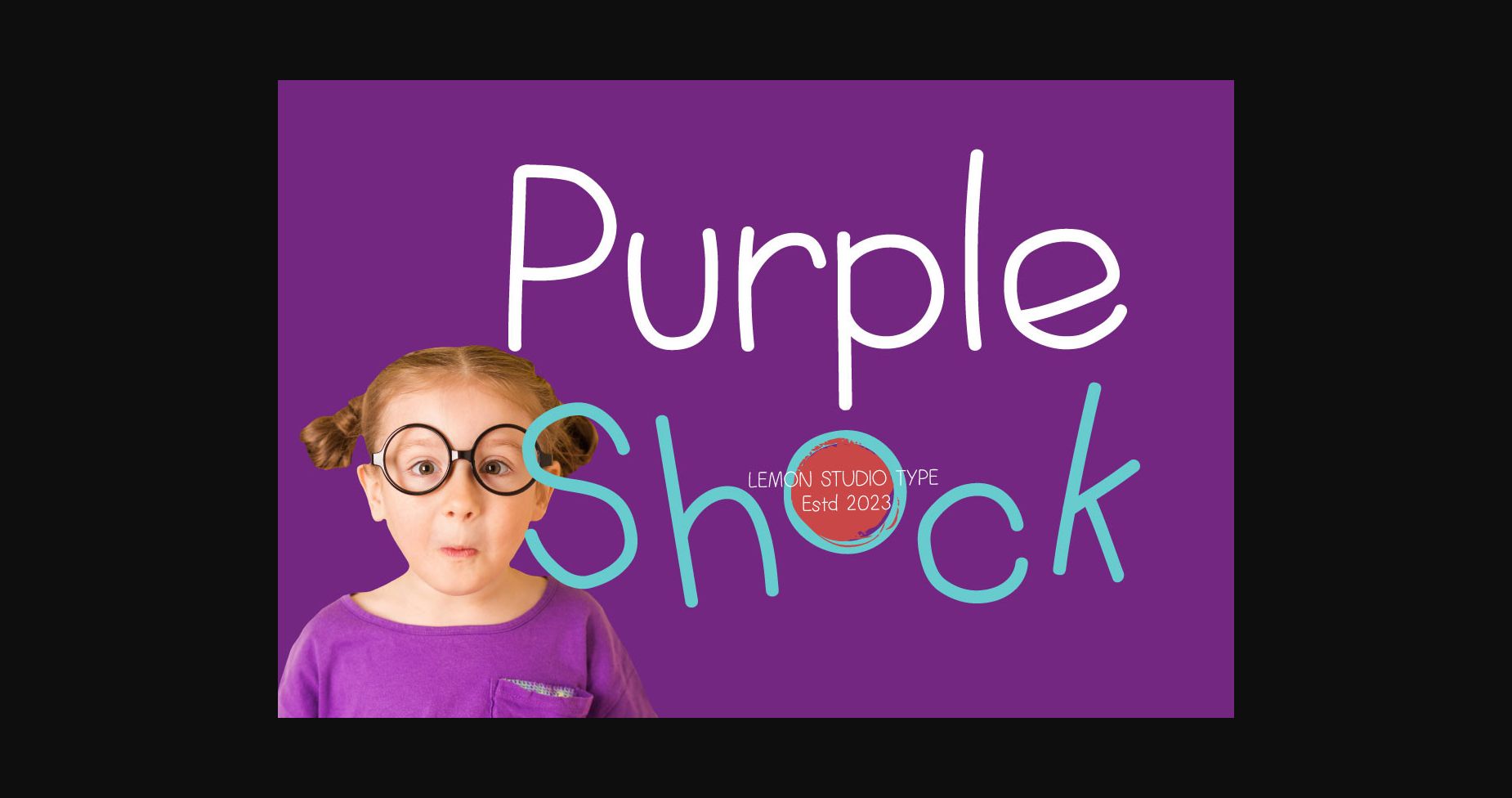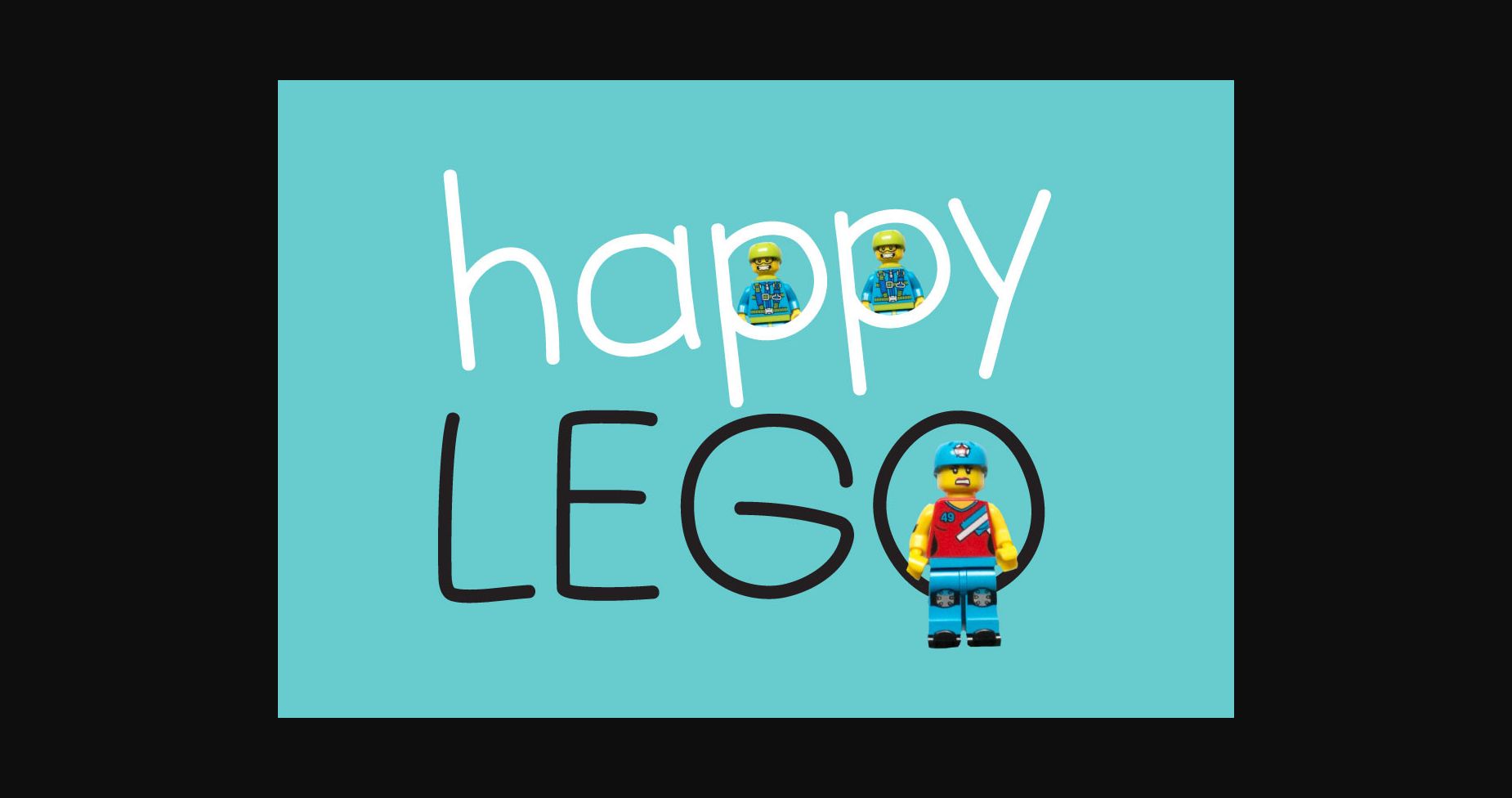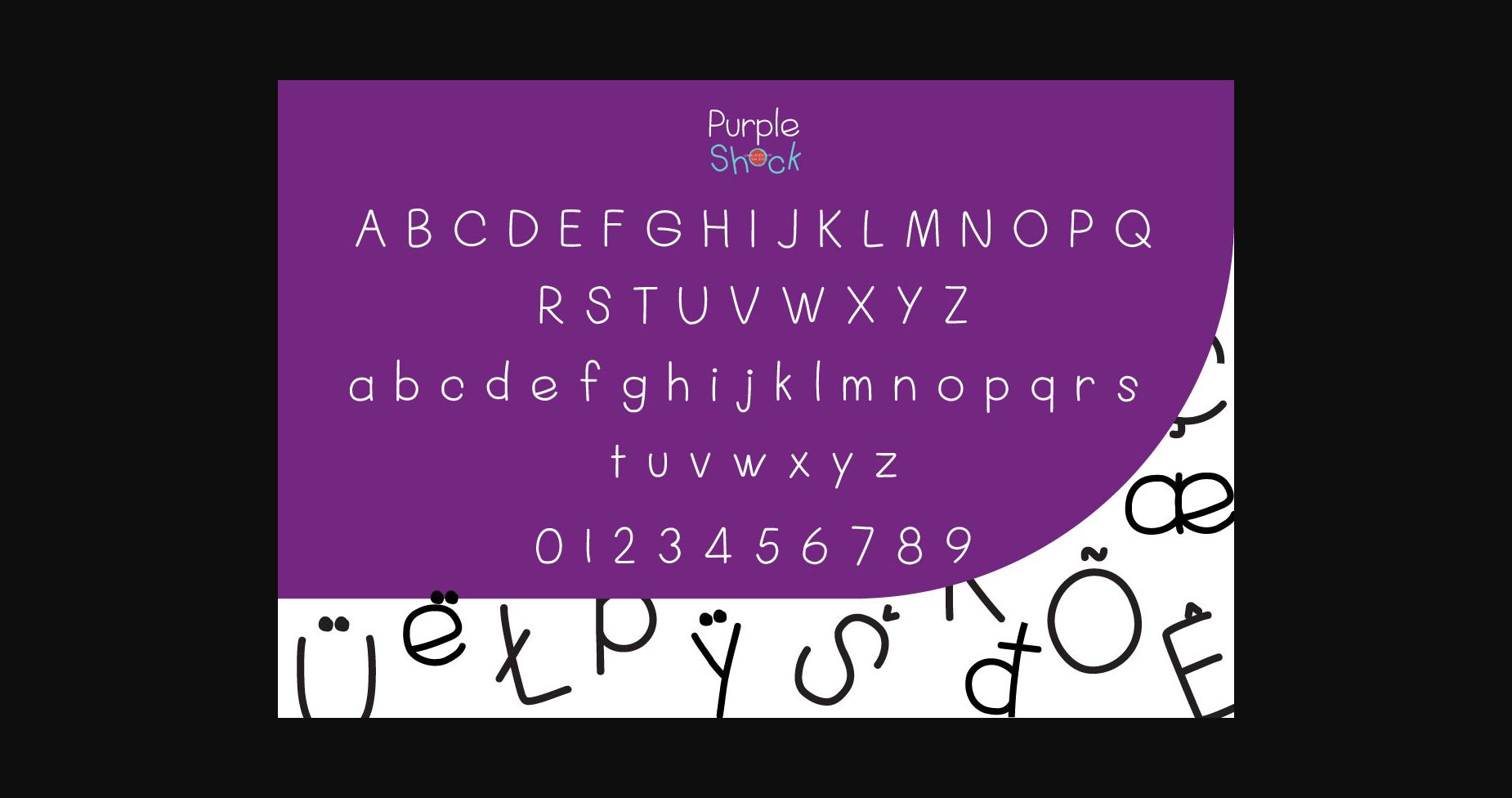
About Purple Shock Font
Purple Shock is a monoline sans font. It has a minimalist and cute style, so itβs perfect for themes related to children. Although beyond that, you can use this font according to your needs. You can use them as headings, mockup designs, brandings, or just for unique decorative quotes.